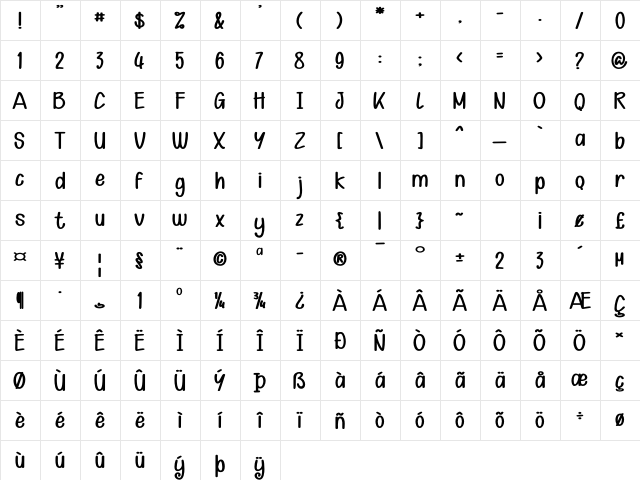
Kid Knowledges 1 Regular Font Preview
Kid Knowledges 1 Regular
Design Context for Kid Knowledges 1 Typeface
Kid Knowledges 1 takes a measured approach to typography — its balanced proportions and neutral character make it a reliable workhorse for both digital and print work.